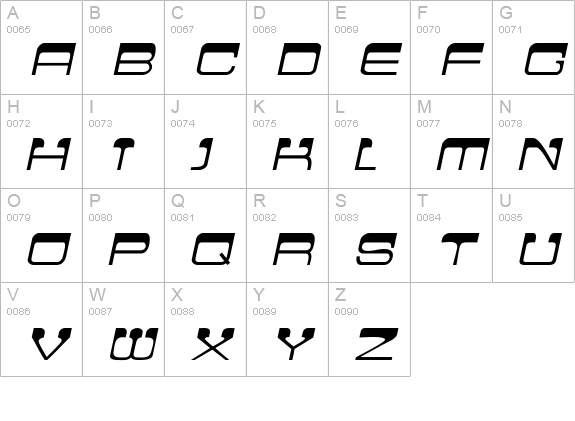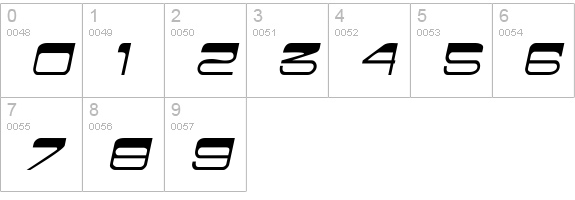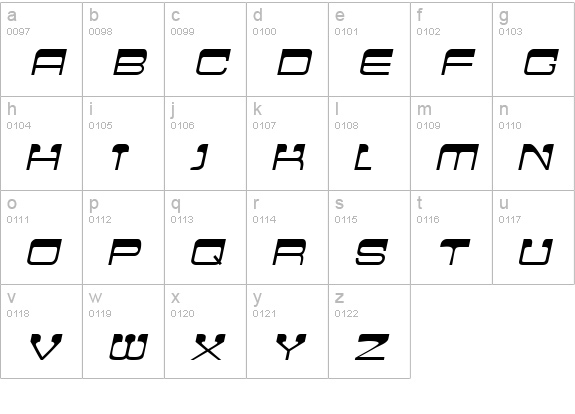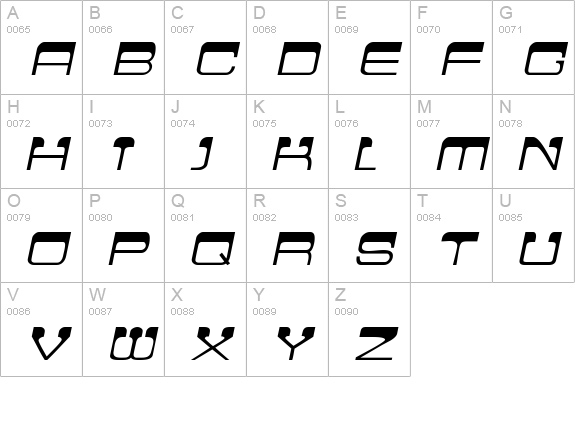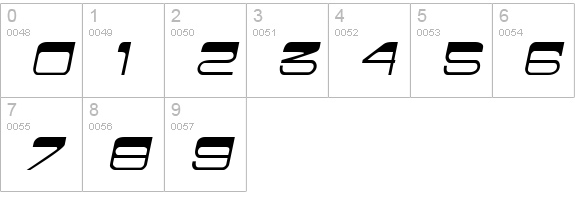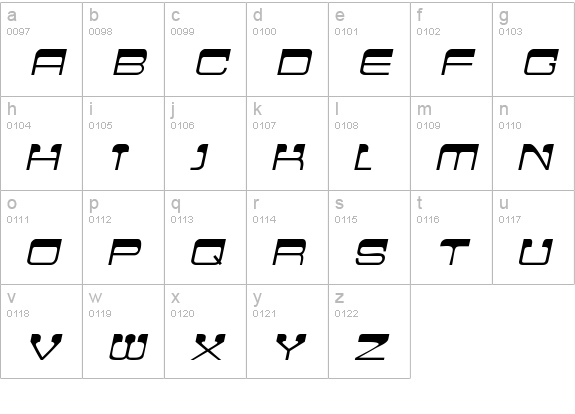
CrewCutCaps Italic Font Details
CrewCutCaps Italic is a distinctive, italic variant in the CrewCutCaps typeface family \xE2\x80\x94 well suited to design and typography projects.
Introducing CrewCutCaps Italic font - a sleek and modern typeface designed to make a bold statement. The italicized design adds a touch of sophistication and flair to any project, making it perfect for headlines, logos, and branding materials. With its clean lines and sharp angles, CrewCutCaps Italic exudes a sense of confidence and professionalism. The stylish letterforms are versatile enough to be used in a variety of settings, from fashion magazines to tech websites. One of the best features of CrewCutCaps Italic font is that it is completely free to download at FontsMarket.com. This means you can easily access this high-quality typeface without any cost, making it a valuable addition to your font collection. Don't miss out on the opportunity to enhance your designs with the bold and dynamic look of CrewCutCaps Italic font. Download it today and elevate your projects to the next level!